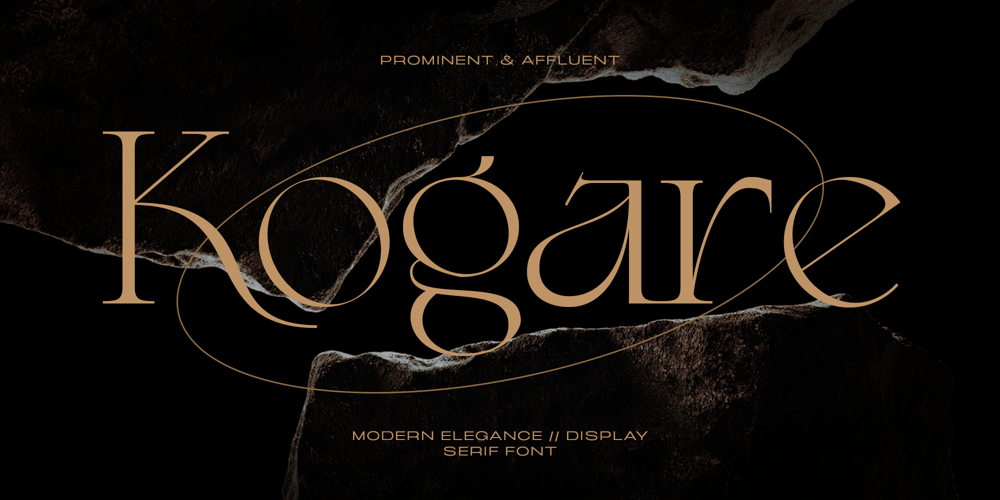
Kogare Font Family was designed by Roland Hüse and published by Prominent and Affluent. Kogare contains 5 styles and family package options. Kogare: Where Elegance Meets Timeless SophisticationMeet Kogare, the meticulously designed serif font that effortlessly captures the essence of elegant design. Inspired by the timeless charm of classic serif writing, this font seamlessly blends tradition and modernity.